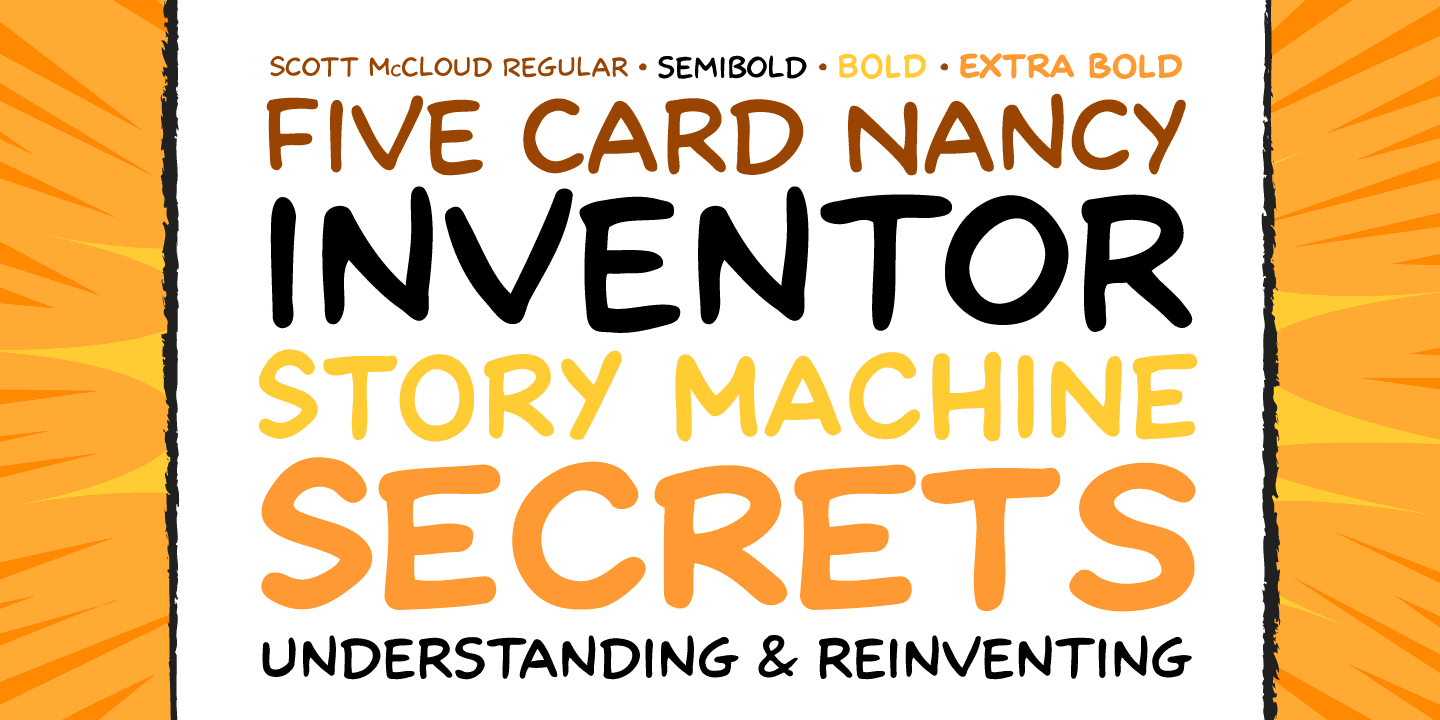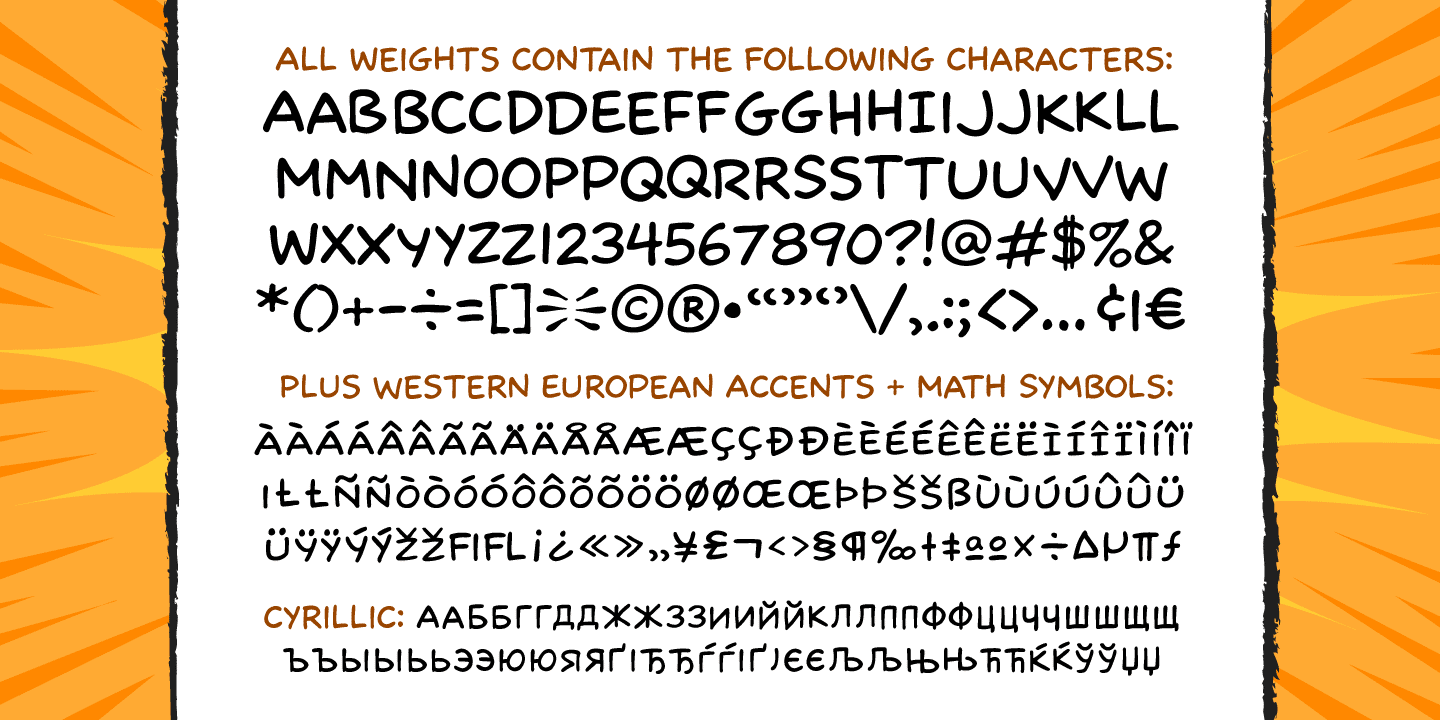
Scott McCloud
Font Family by Comicraft Fonts
Whether you're Making, Understanding or Reinventing comics, you'll need a comic book font that makes your comic book, or comic book about making, understanding or reinventing comic books, look like a, um, comic book. Yes, it's all very well writing about the Invisible Art of Making Comics, but if you can't read about the Storytelling Secrets of Comics, Manga and Graphic Novels, they'll still be secrets, won't they? That's why Scott McCloud came to us to create the official "Making Comics: Storytelling Secrets of Comics, Manga and Graphic Novels" comic book font, or as we like to call it: McComicBookFont.